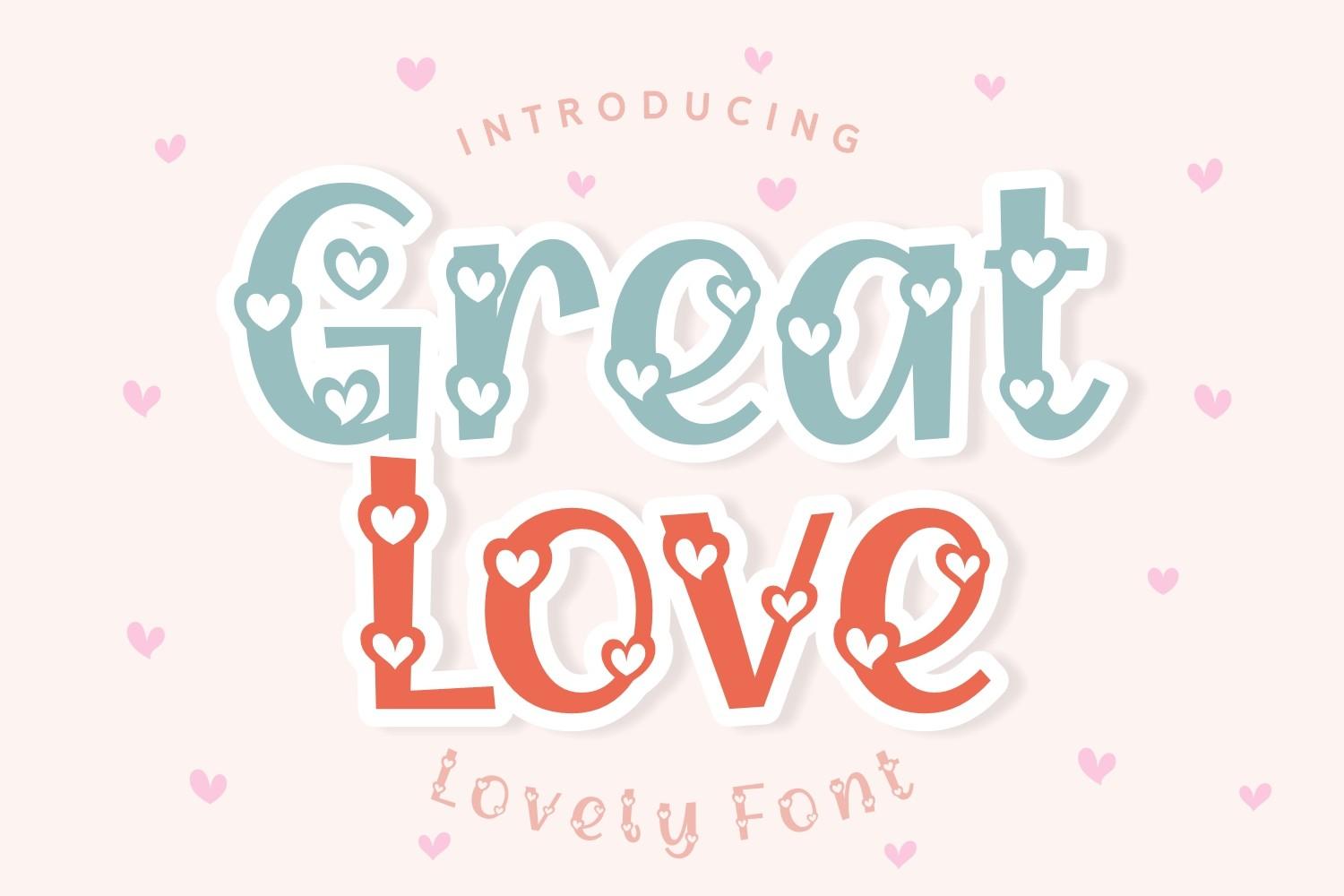
Great Love Font Description
Great Love is a playful and romantic display font featuring heart details in each letter, number, punctuation, and symbol. It is a perfect typeface for your Valentine’s Day projects and beyond. Great Love is compatible with cutting machines such as Cricut and Silhouette.